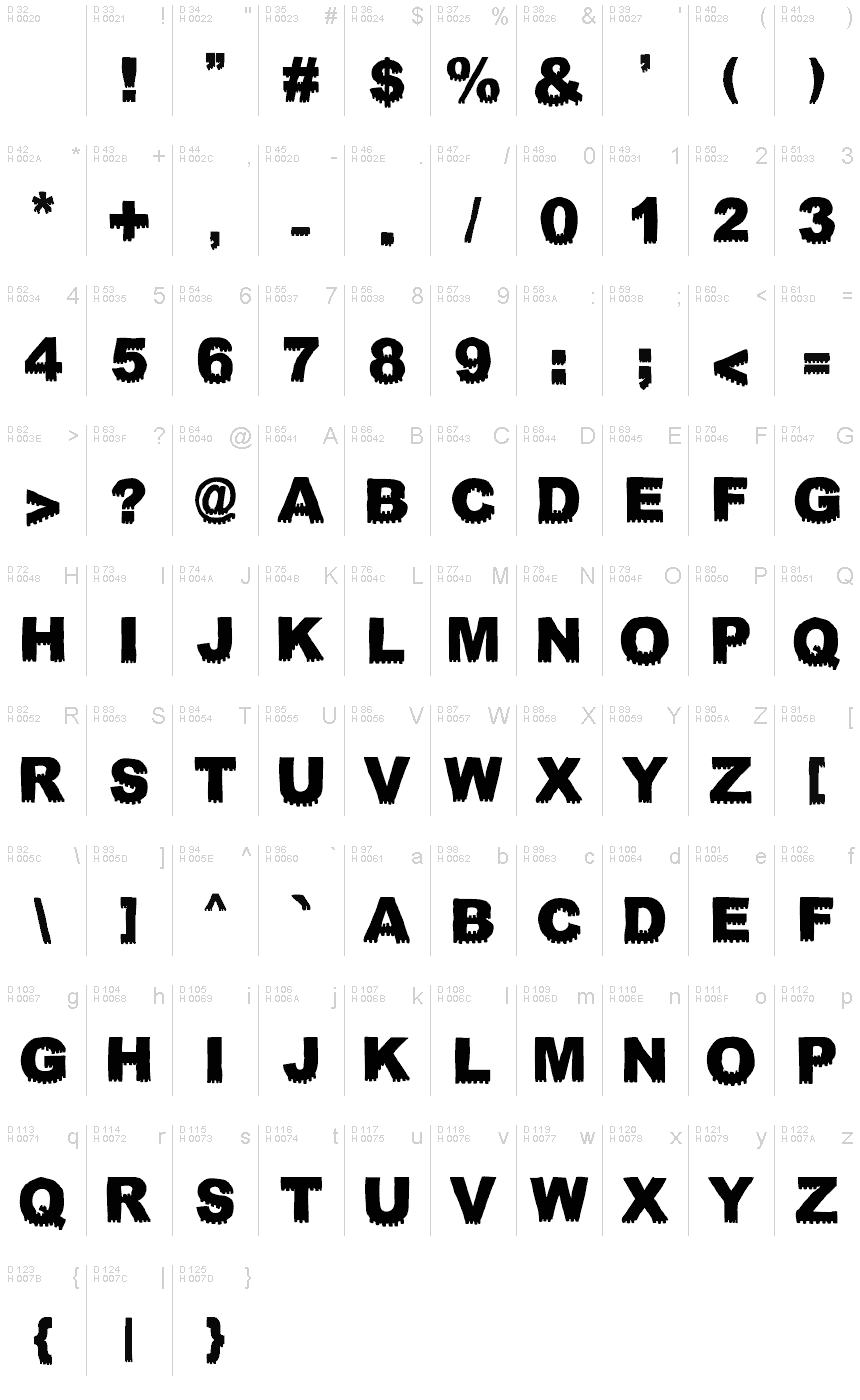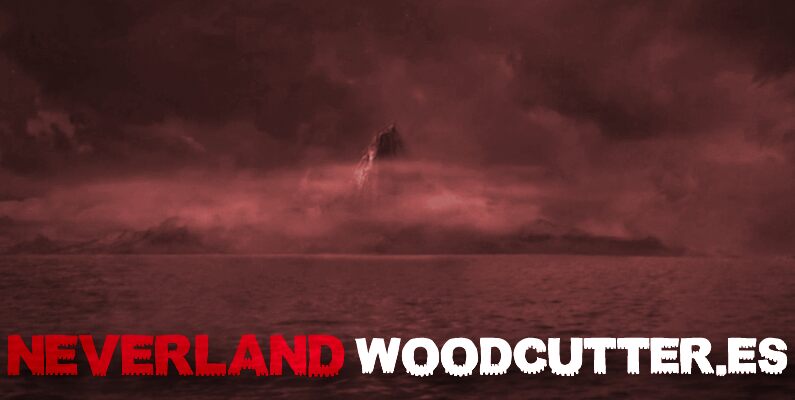
NEVERLAND
Neverland is a captivating display font that exudes an unmistakable air of mystery and intrigue. Designed by Woodcutter, this bold and striking typeface commands attention with its sharp, angular letterforms and an almost otherworldly aesthetic.
The font's unique styling evokes a sense of the macabre, making it a perfect choice for horror-themed designs, movie posters, or any project in need of a touch of dark, unsettling charm. Neverland's versatility extends beyond its haunting appeal, as it can also be leveraged to add visual impact to branding, packaging, and even editorial layouts.
Its bold presence ensures that this font will leave a lasting impression on viewers, making it a valuable asset in the toolbox of any design professional.
NEVERLAND font